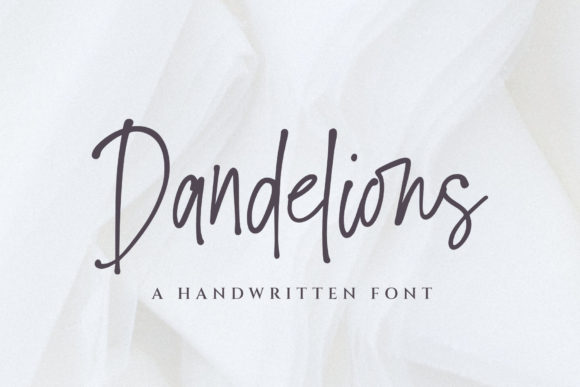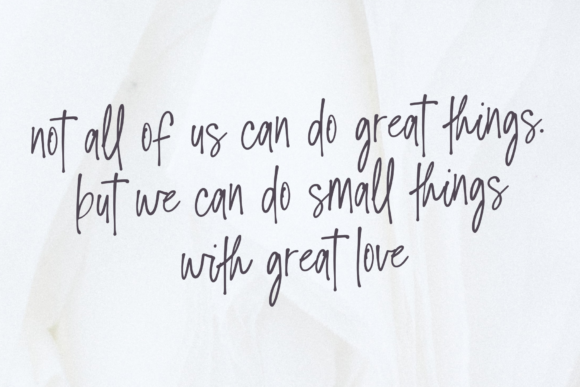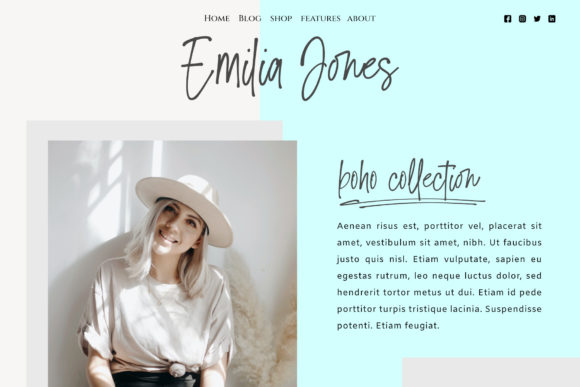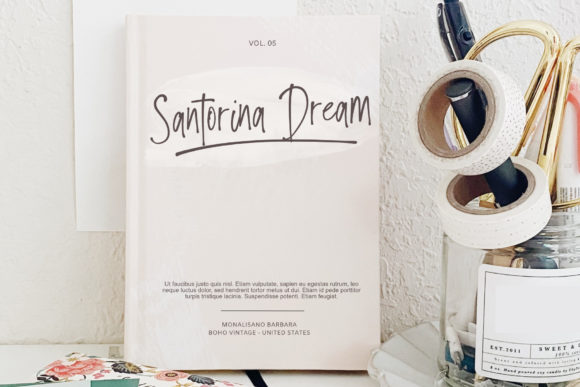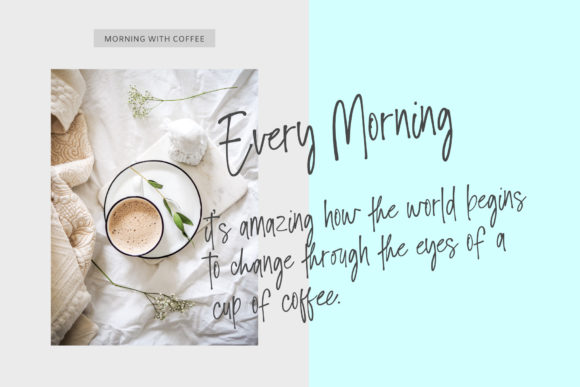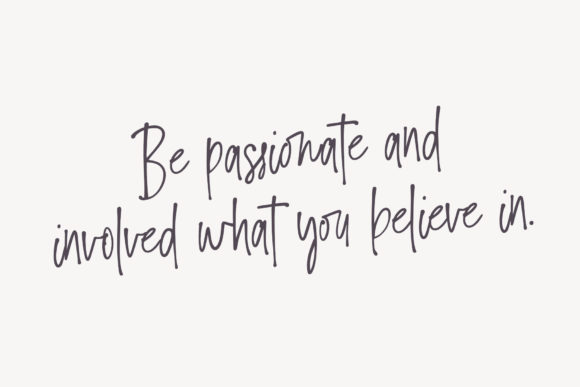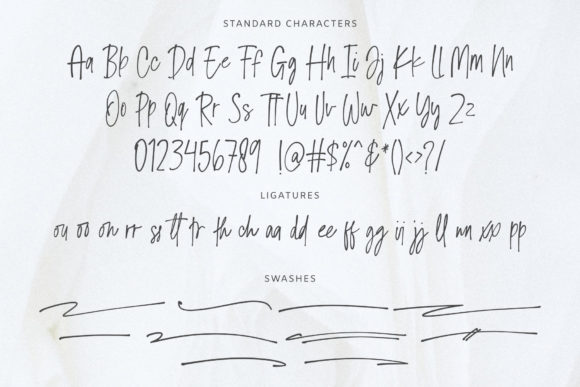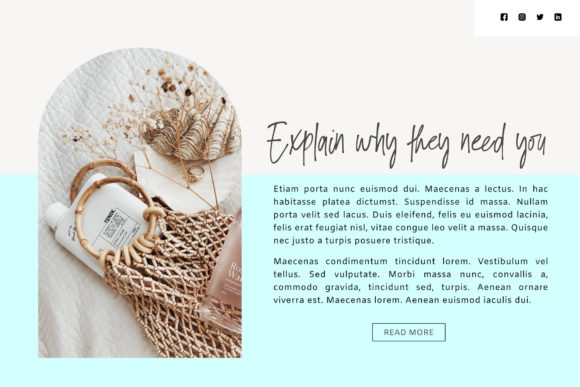
Dandelions Font
About Dandelions Font
Dandelions is a whimsical handwritten font that gives off delicate and sweet vibes. It is a perfect fit for wedding invitations, birthday cards, thank you notes, or other projects that need an authentic and cute look!